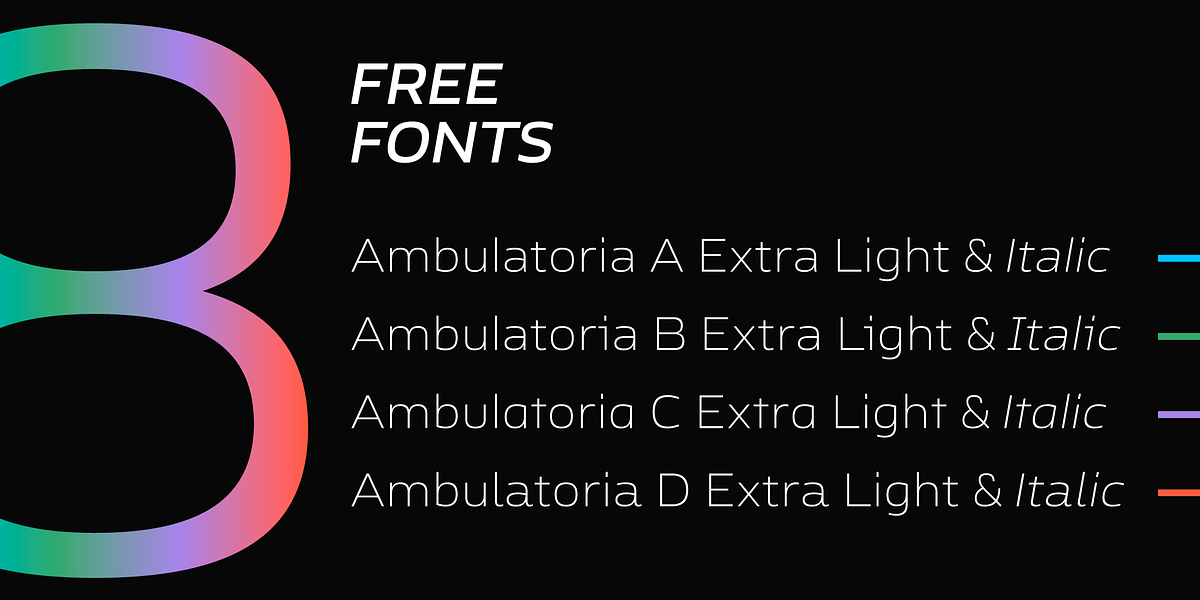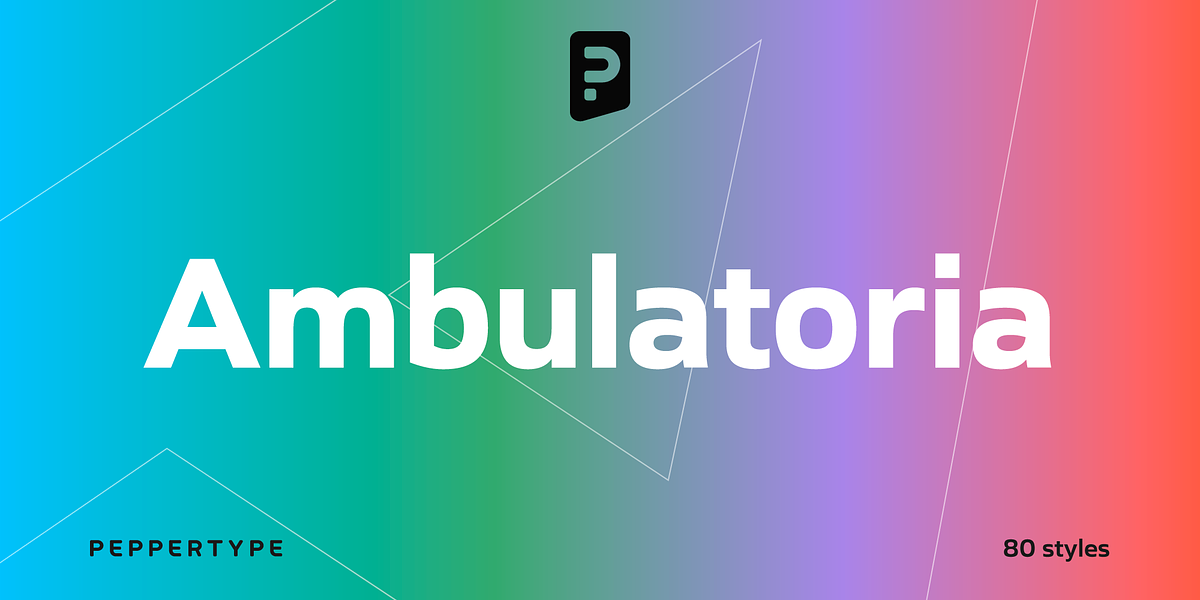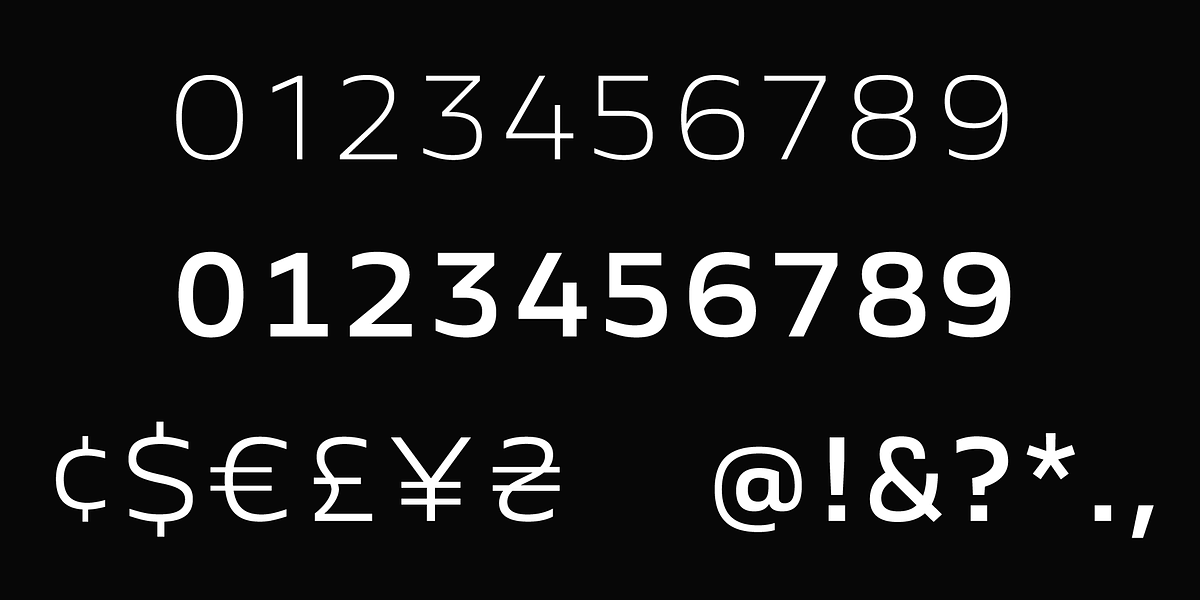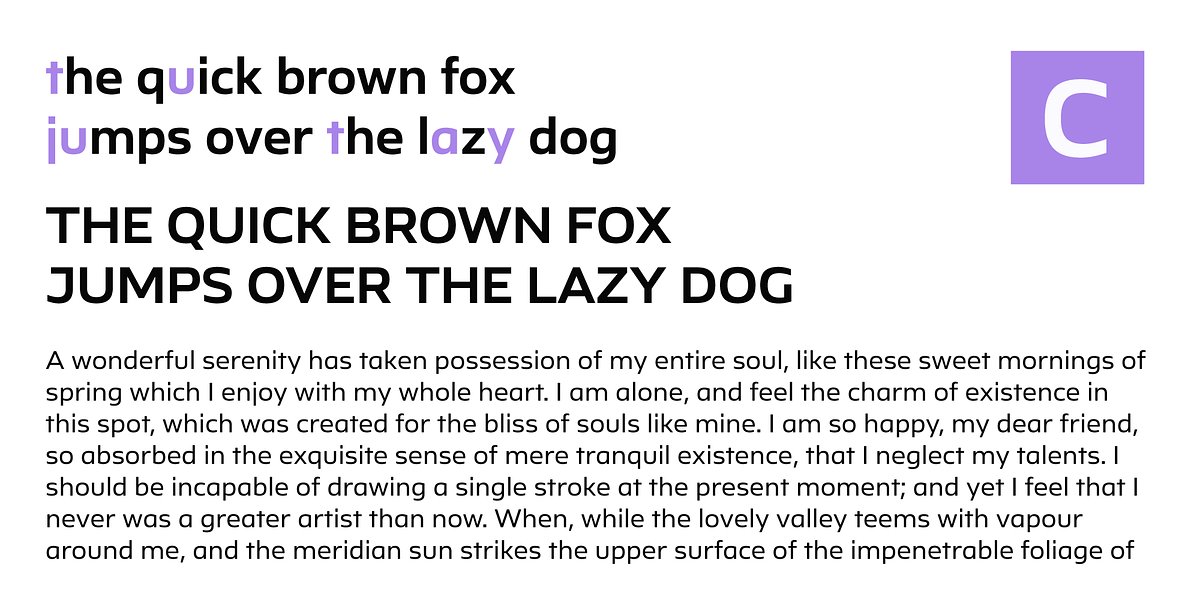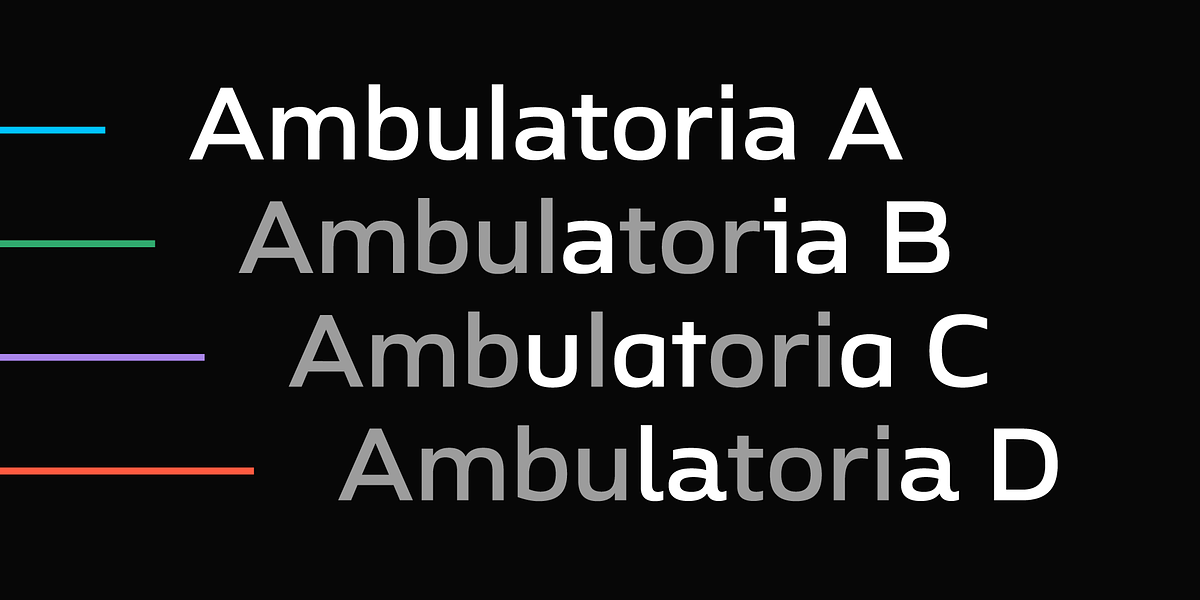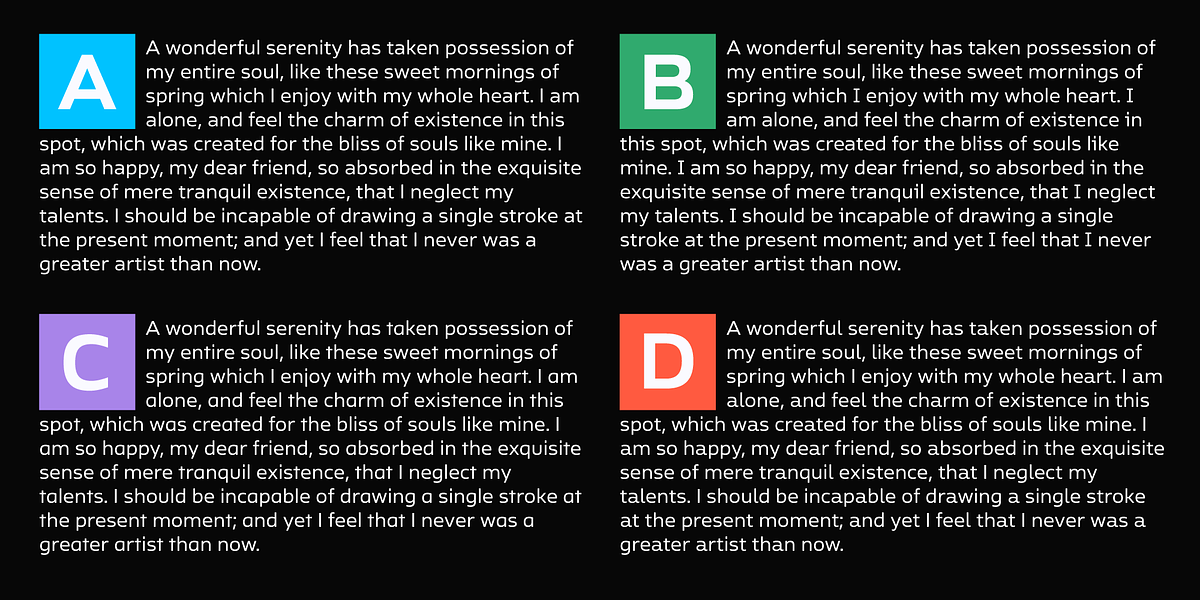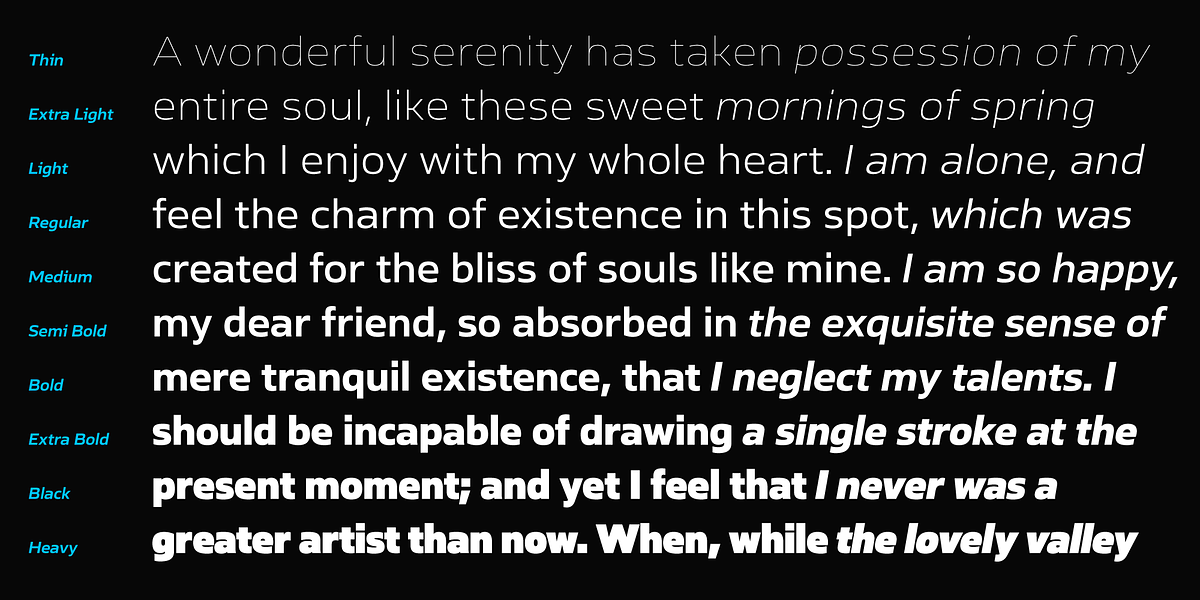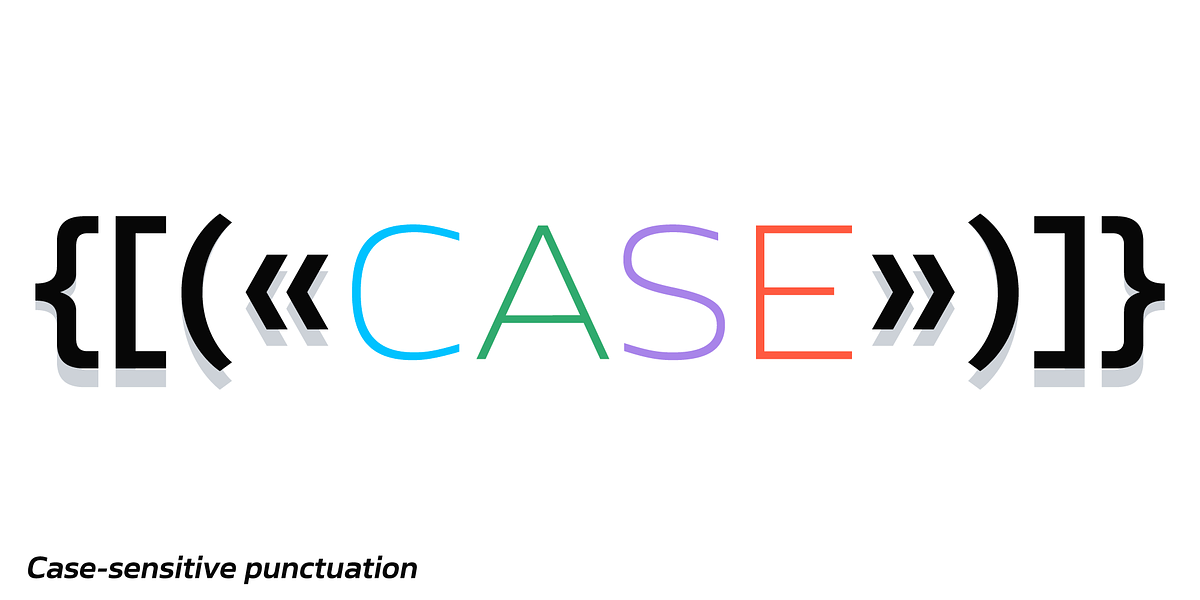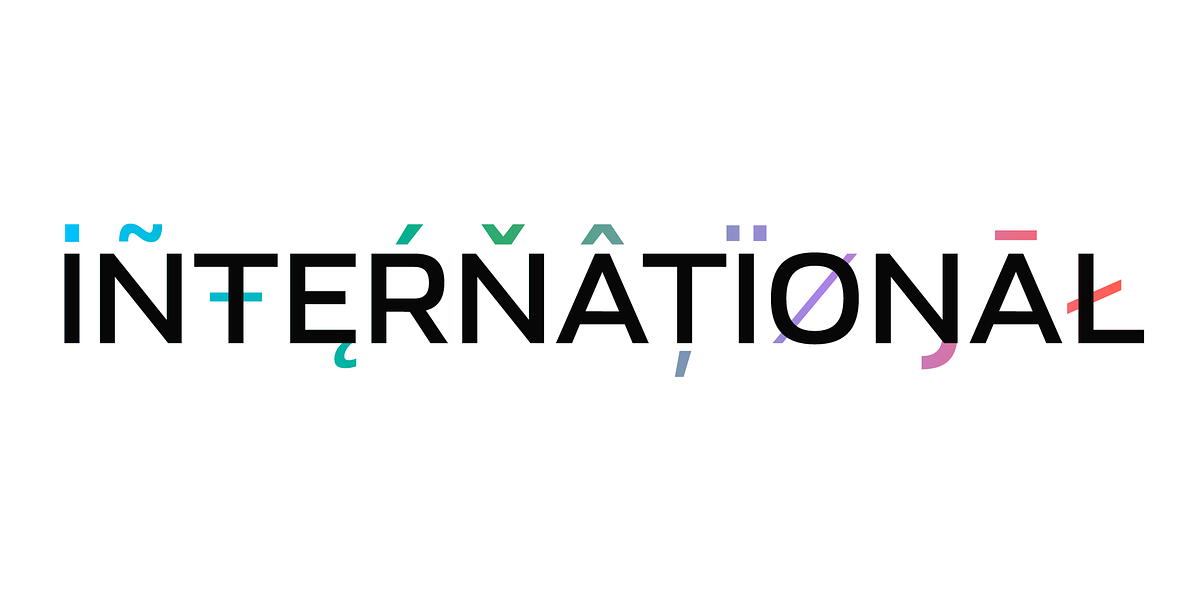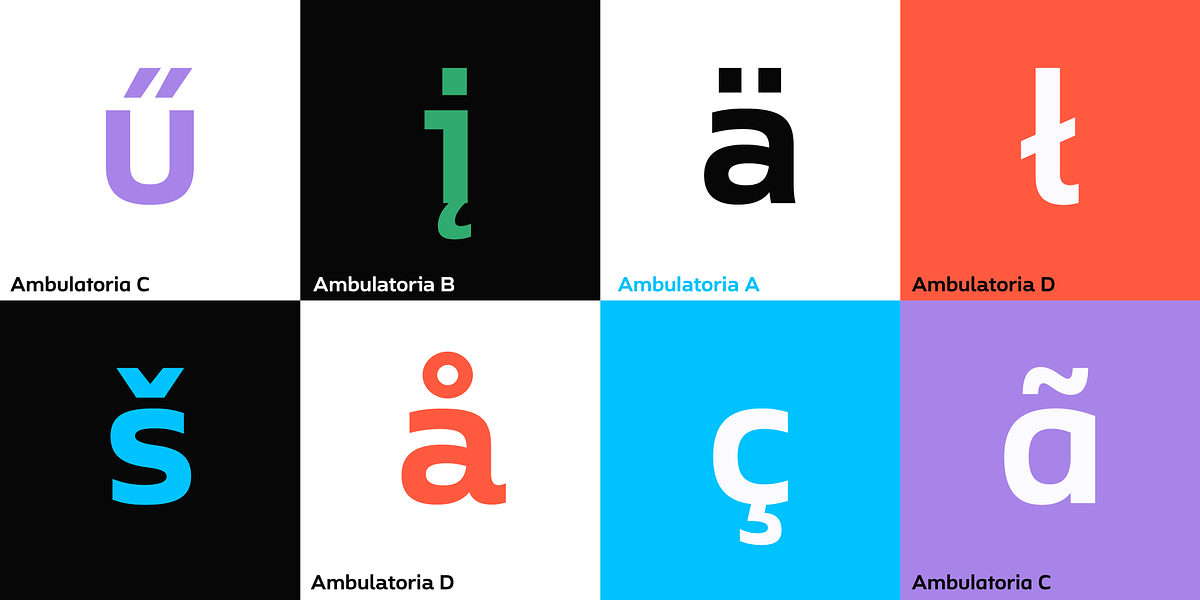
Ambulatoria B
Ambulatoria is a humanist sans-serif font designed for versatility. It comes in four variations (A, B, C, and D), each with alternate glyphs for certain characters, allowing designers to adjust the texture and appearance of the text. The font family boasts 80 fonts in total, supporting a wide range of languages including pan-European Latin and Cyrillic scripts. Its design aims to be legible and visually appealing at both large and small text sizes, making it suitable for diverse typographic applications.